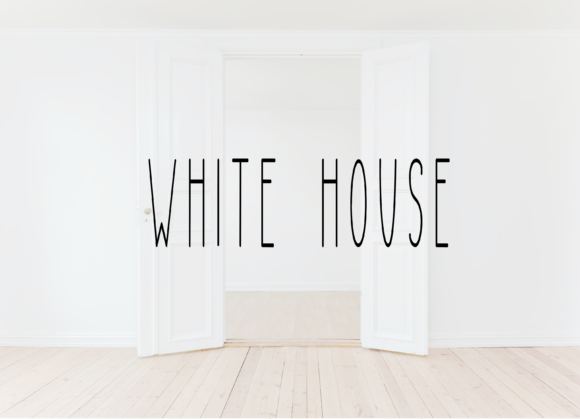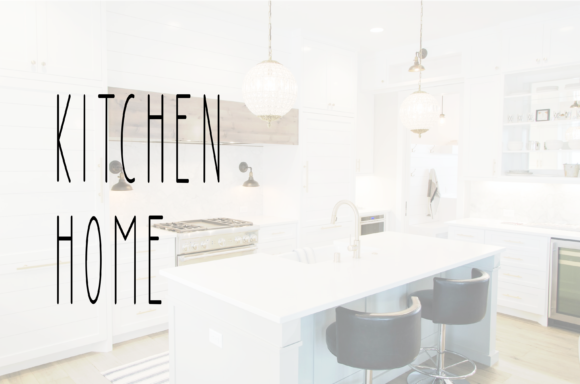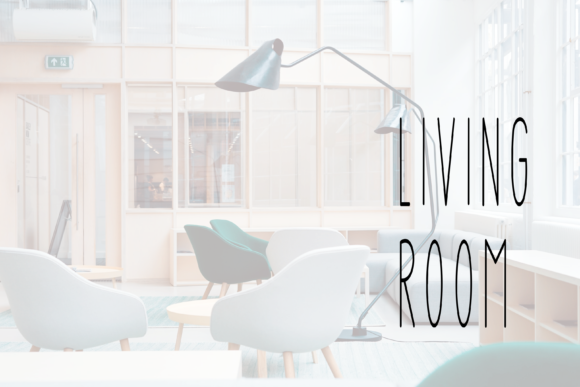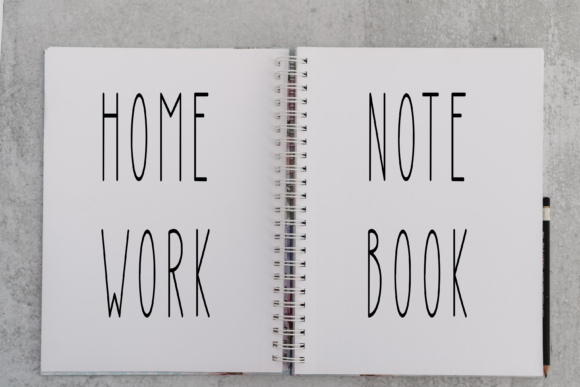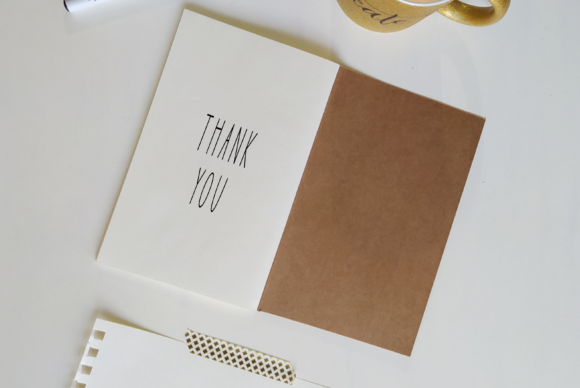
Introduction to Home Minimalist Font
Home Minimalist is a cute, simple and clean sans serif font.
Key Features of Home Minimalist Font
Why Choose Home Minimalist Font?
Home Minimalist Font offers exceptional quality and versatility, making it a valuable addition to your design toolkit. Whether you’re creating for personal projects or commercial use, Home Minimalist Font delivers professional results.